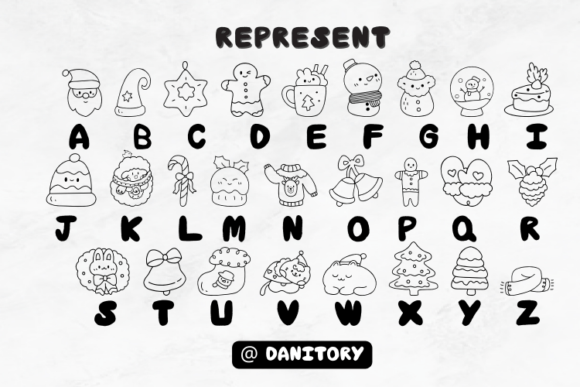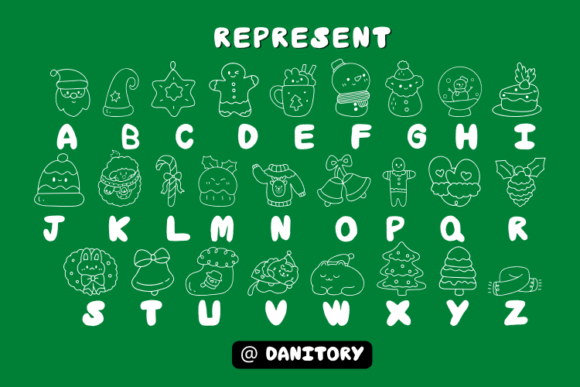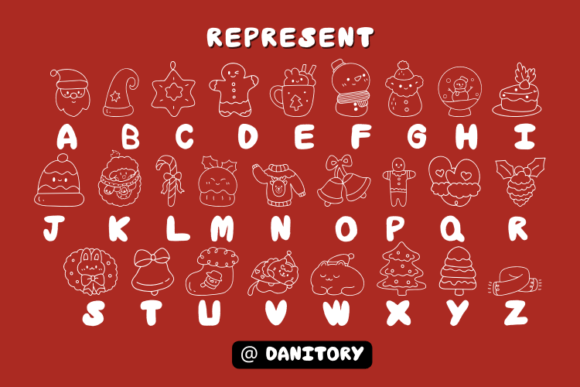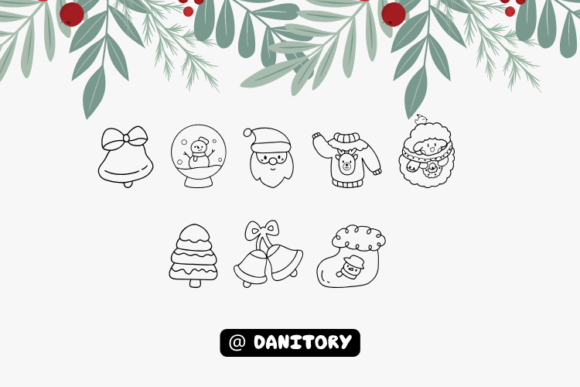
About Hello Christmas Font
Introducing “Hello Christmas,” a delightful and festive dingbats font designed to bring the holiday spirit to your creative projects. With its charming and playful style, Hello Christmas is the perfect addition to your Christmas-themed designs, crafts, and more.
This cute dingbats font is filled with a variety of Christmas-inspired glyphs, including adorable icons, symbols, and ornaments that represent the joy and magic of the holiday season. From Santa Claus and reindeer to snowflakes and presents, Hello Christmas offers a wide range of festive elements to enhance your designs.
Whether you’re creating greeting cards, invitations, party decorations, or digital graphics, Hello Christmas adds a touch of whimsy and cheer. Simply type out the corresponding letters or characters to access the charming Christmas icons and symbols, and let your creativity shine.
Hello Christmas is versatile and can be used in various projects. Create eye-catching posters, banners, or social media graphics to spread the Christmas cheer. Craft personalized gift tags or labels using the festive glyphs. Add a touch of holiday magic to your website or blog with Hello Christmas icons. The possibilities are endless!
This dingbats font is designed with attention to detail, ensuring that each glyph captures the essence of the Christmas season. The cute and festive style of Hello Christmas brings a sense of joy and warmth to your projects, making them stand out and spread the holiday spirit.
Whether you’re a professional designer, a holiday enthusiast, or simply looking to add some festive flair to your creations, Hello Christmas is here to make your designs merry and bright. Its easy-to-use format and delightful selection of Christmas glyphs make it a must-have font for all your holiday-themed projects.